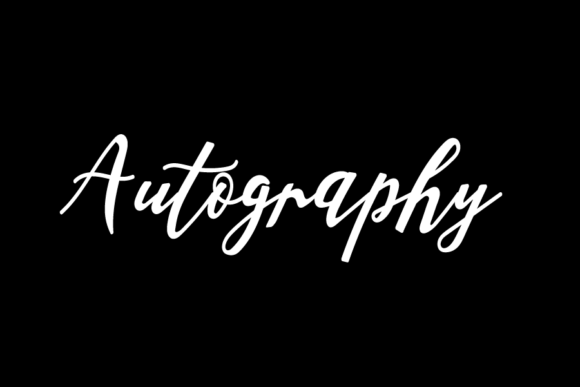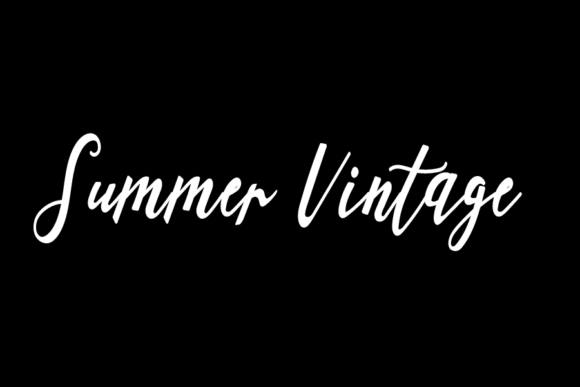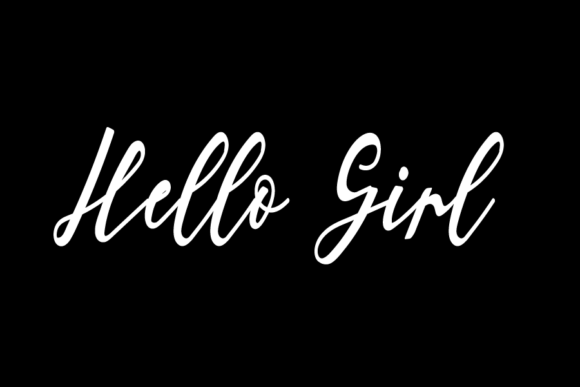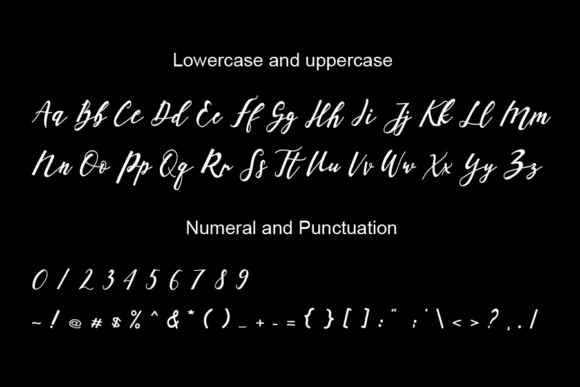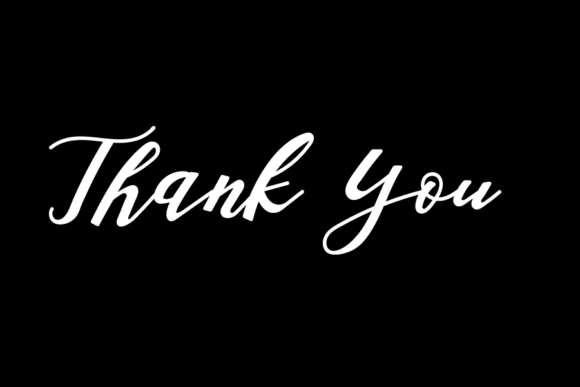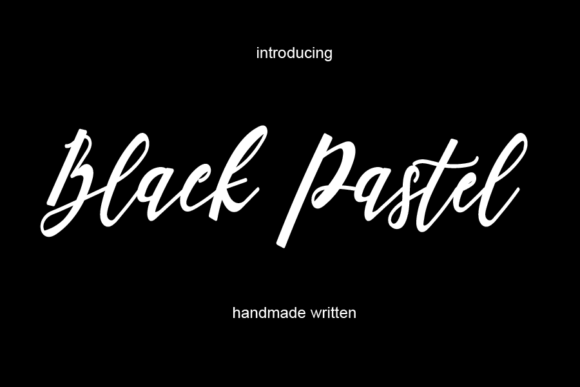
Discover the Elegance of Black Pastel Font: Elevate Your Designs with a Personalized Touch
In the world of typography, fonts play a crucial role in conveying the message and aesthetic of a design. For designers and crafters looking to add a touch of elegance and personality to their creations, the Black Pastel Font is an excellent choice. This unique and elegant handwritten font is designed to bring a personalized style to a variety of designs, making it a versatile tool for anyone looking to make their mark.
The Charm of Black Pastel Font
Black Pastel Font stands out with its distinctive handwritten style that exudes elegance and sophistication. Its unique charm lies in its ability to blend simplicity with a personal touch, making it suitable for a wide range of projects. Whether you’re working on a logo, a greeting card, a poster, or any other design that requires a bit of flair, Black Pastel Font can add that special something that sets your work apart.
Key Features of Black Pastel Font
- Unique and Elegant Handwritten Style: Black Pastel Font boasts a one-of-a-kind appearance that can instantly elevate the look of your designs.
- Versatility: Its elegant and clear style makes it suitable for a variety of design projects, from digital to print.
- Personalized Touch: The font adds a human touch to your designs, making them more relatable and engaging.
- Easy to Read: Despite its elegant and cursive nature, the font maintains a level of readability that is crucial for effective communication.
How to Use Black Pastel Font in Your Designs
Incorporating Black Pastel Font into your designs is straightforward and can be done with ease, even if you’re new to typography. Here are some tips to get you started:
- Pair it with Other Fonts: For maximum impact, try pairing Black Pastel Font with a sans-serif font for headings and a serif font for the body text. This combination can create a visually appealing contrast.
- Experiment with Sizes: Don’t be afraid to experiment with different font sizes. Using Black Pastel Font in larger sizes can make it a focal point, while smaller sizes can add subtle elegance.
- Play with Colors: While the “black” in Black Pastel Font suggests a use for darker designs, don’t limit yourself. This font can be beautifully used in colored designs as well, adding a pop of personality.
Who Can Benefit from Black Pastel Font?
The versatility of Black Pastel Font makes it a valuable asset for a wide range of professionals and hobbyists. Here are some of those who can particularly benefit from this elegant font:
- Graphic Designers: Looking for a unique touch for their projects, from branding to advertising materials.
- Crafters: Creating handmade cards, scrapbooking, or other craft projects that require a personal touch.
- Digital Artists: Seeking elegant and distinctive typography for their digital art.
- Small Business Owners: Aiming to create a strong brand identity with custom packaging, logos, and marketing materials.
Black Pastel Font is more than just a typeface; it’s a tool for transforming your designs with a touch of elegance and personality. Its unique and elegant handwritten style makes it an excellent choice for anyone looking to add a bit of sophistication and individuality to their work. Whether you’re a professional designer or a crafting enthusiast, Black Pastel Font can help you achieve your creative goals and make your designs stand out. So, add it confidently to your favorite creations and let yourself be amazed by the outcome generated.